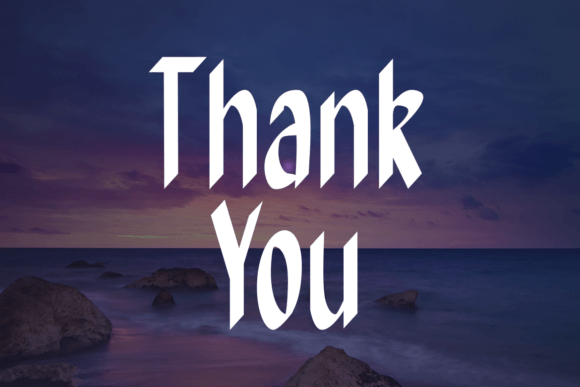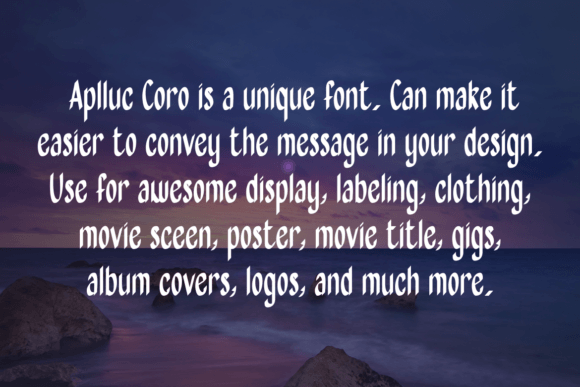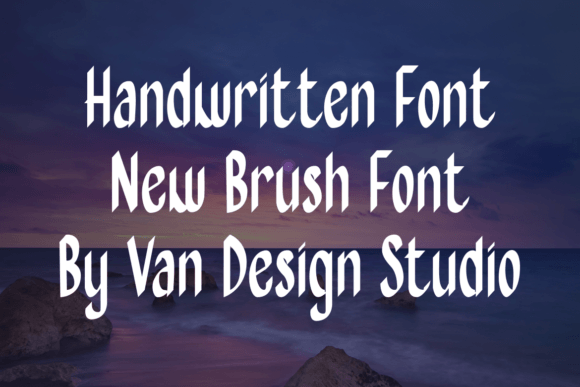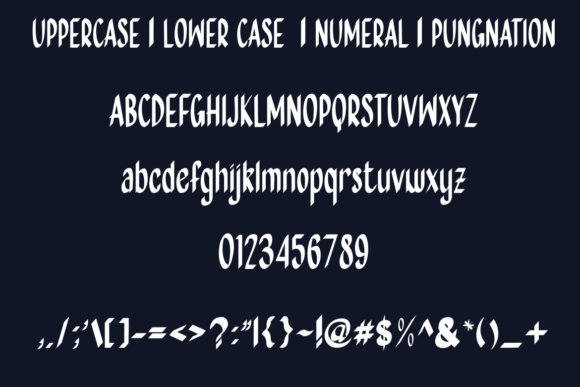
Introduction to Aplluc Coro Font
Have you ever found yourself stuck in a design rut, unable to put your finger on the perfect font to bring your creative project to life? It’s a feeling we’ve all experienced at some point, but what if we told you there’s a font that could change all that? Enter Aplluc Coro Font, a stunning handwritten font that’s as sweet as it is versatile.
Imagine having a design resource at your fingertips that’s not only free to download but also boasts high-quality graphics that will elevate any project. Aplluc Coro Font is more than just a font – it’s a game-changer for designers looking to add a personal touch to their work. With its unique, natural style and transparent background, the possibilities are endless, limited only by your imagination.
- High-quality font design ideal for creative projects and design resources.
- Unique and stylish design with a transparent background, allowing for flexibility in design applications.
- Perfect for use in digital designs, including websites, social media graphics, and mobile apps.
- Easy to customize and use in a range of creative projects, from logos to typography-based designs.
- Designed to provide a modern and elegant look, making it an excellent addition to any design resource collection.
As a designer, I’m always on the lookout for high-quality design resources that can elevate my creative projects. Recently, I stumbled upon the Aplluc Coro Font, and I’m excited to share my honest review with you.
- ✨ The Aplluc Coro Font features a beautiful, modern design with a transparent background, making it perfect for graphic designers and digital artists.
- ✨ The font is highly customizable, allowing users to adjust the size, color, and style to suit their design needs.
Overall, I’m impressed with the Aplluc Coro Font’s unique design and versatility. While it has some limitations, it’s an excellent resource for designers working on creative projects. I would recommend it to anyone looking for a high-quality, free design element to elevate their work.